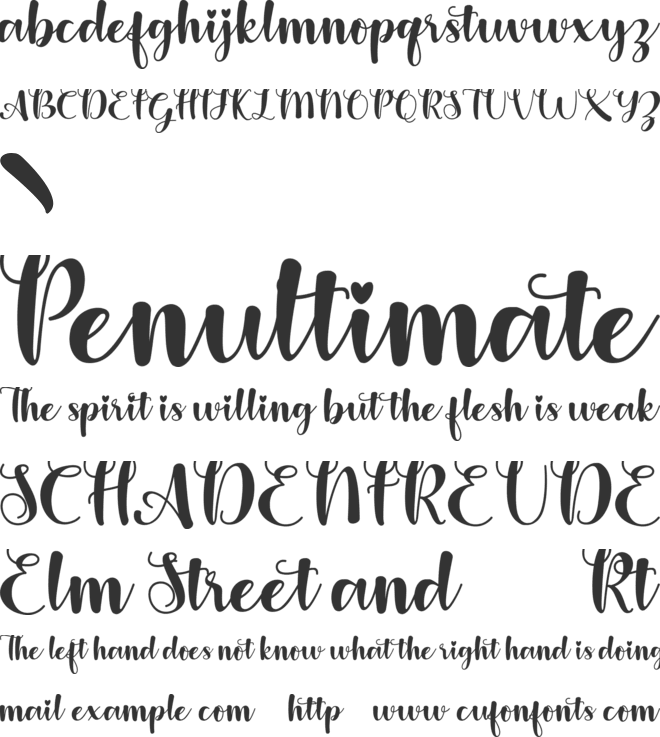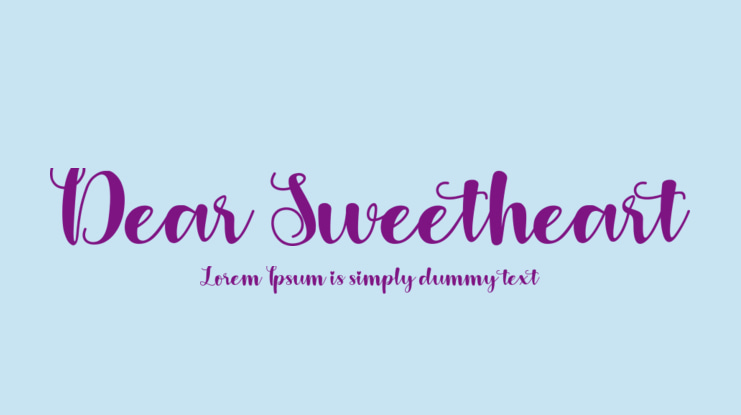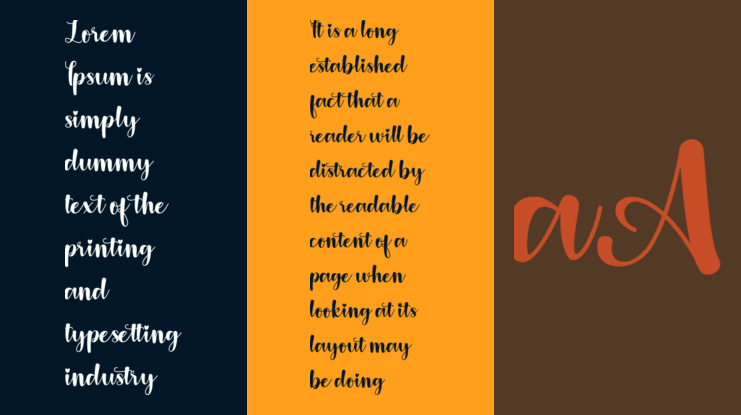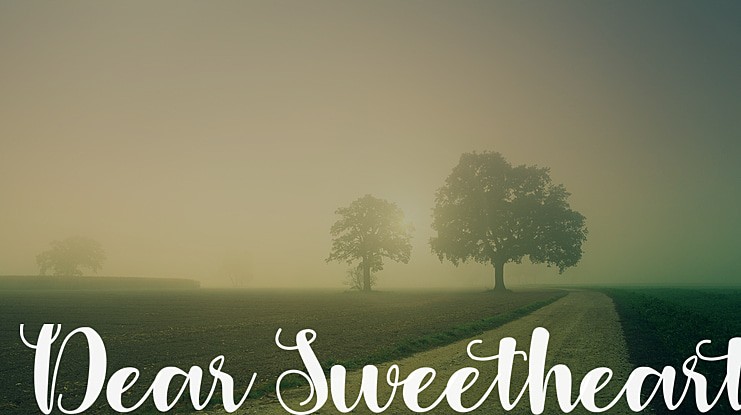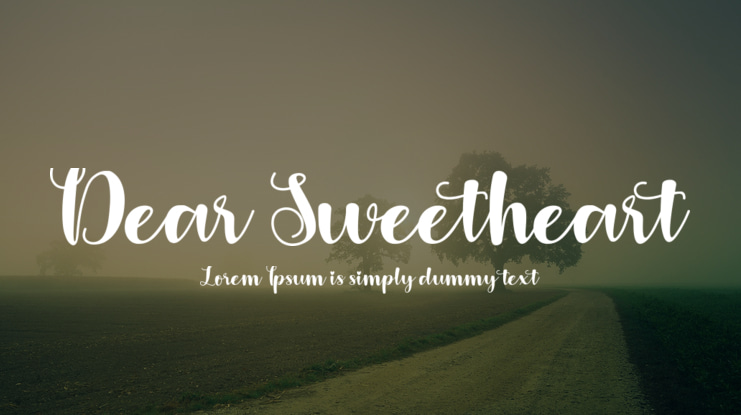
Dear Sweetheart Font
Dear Sweetheart is a romantic and sweet script font with characters that dance along the baseline. It will add a luxury spark to any design project that you wish to create! This font is PUA encoded, which means you can access all of the amazing glyphs and ligatures with ease!